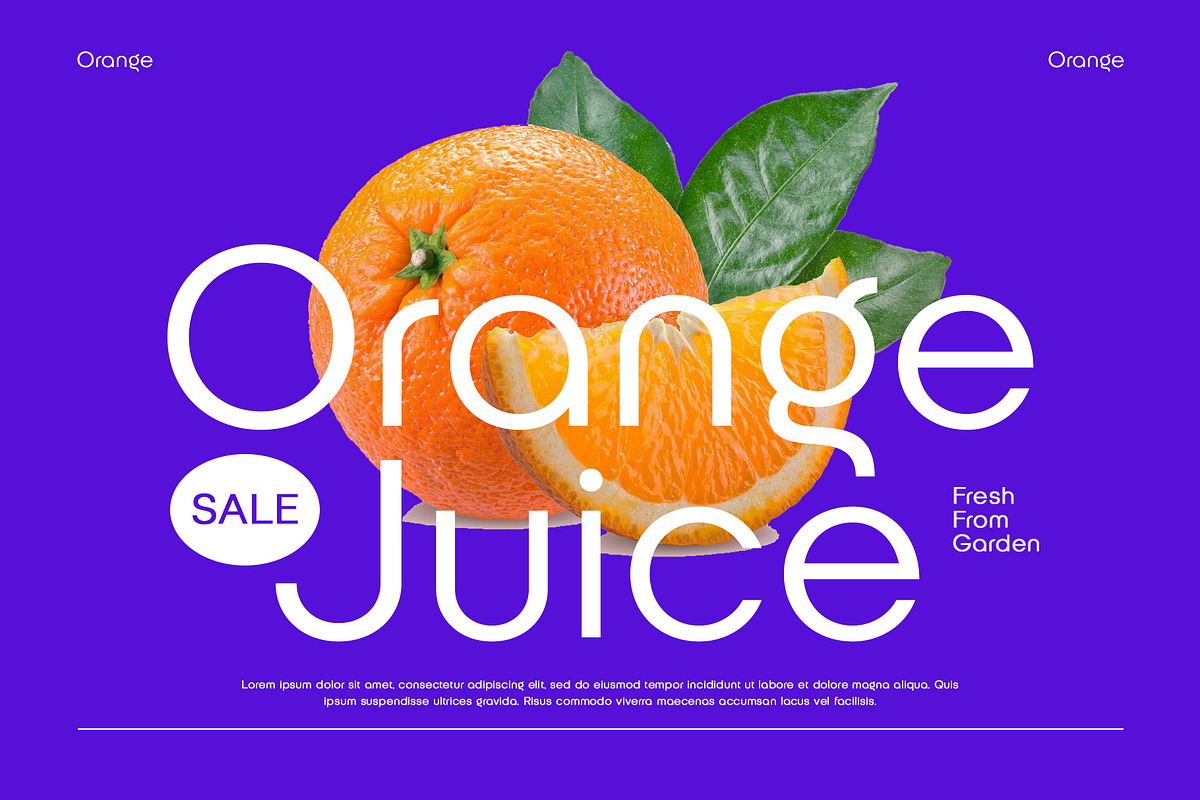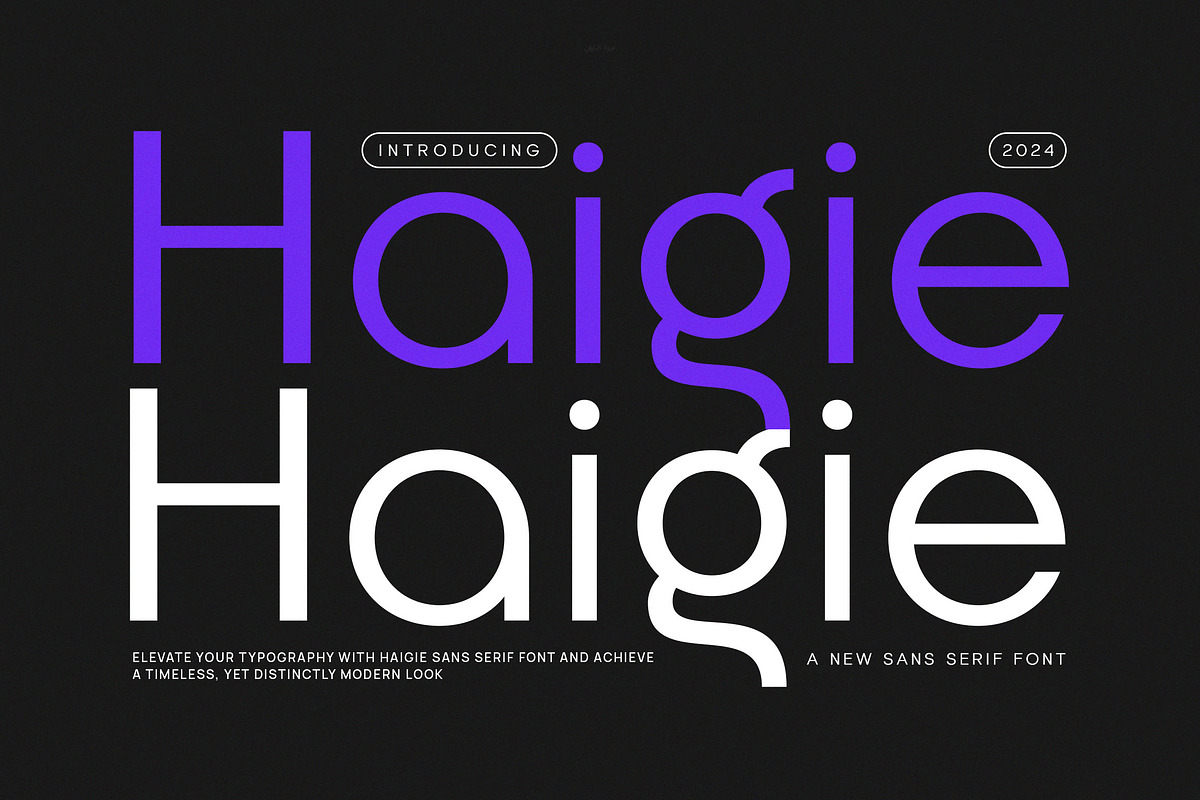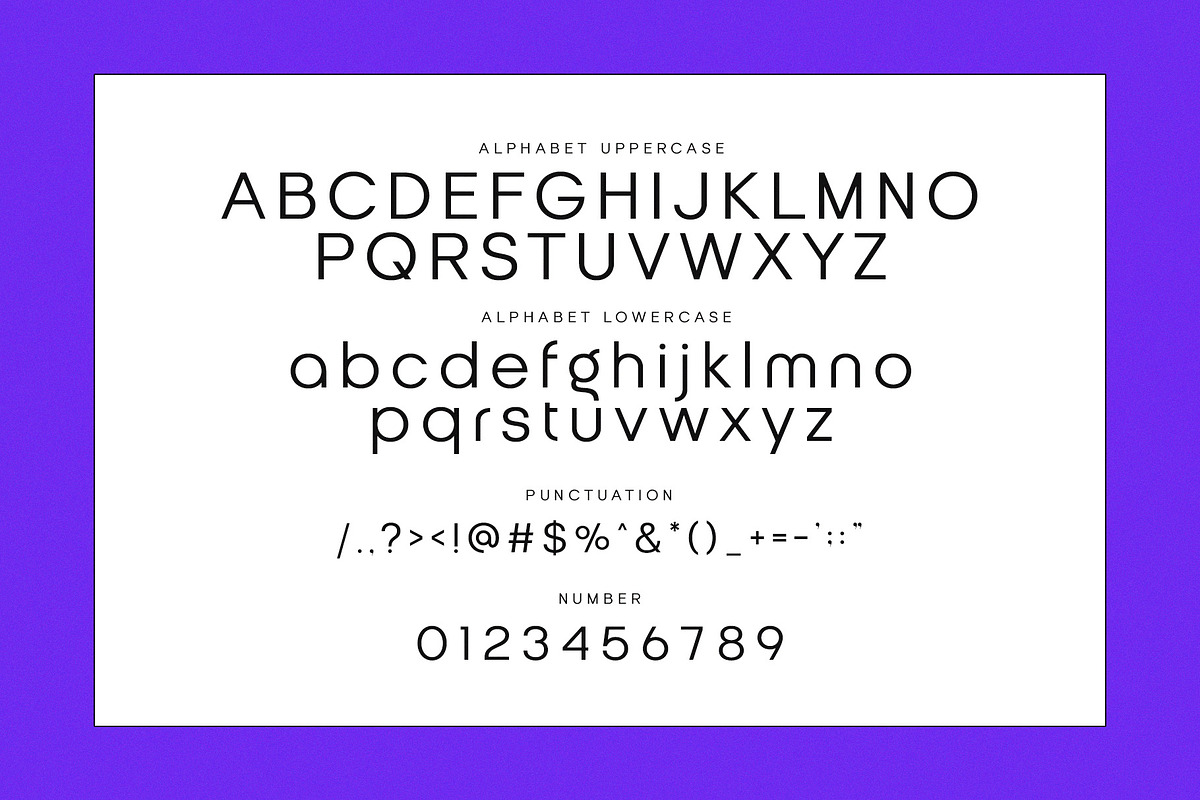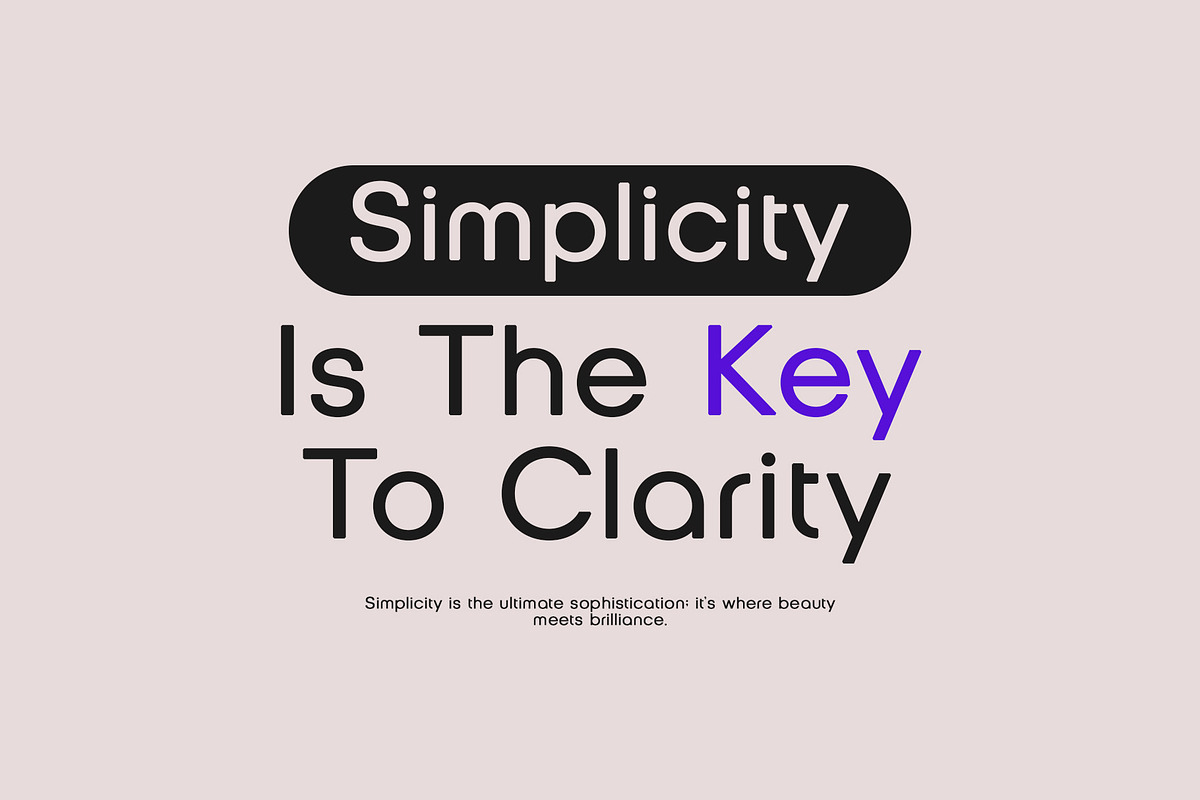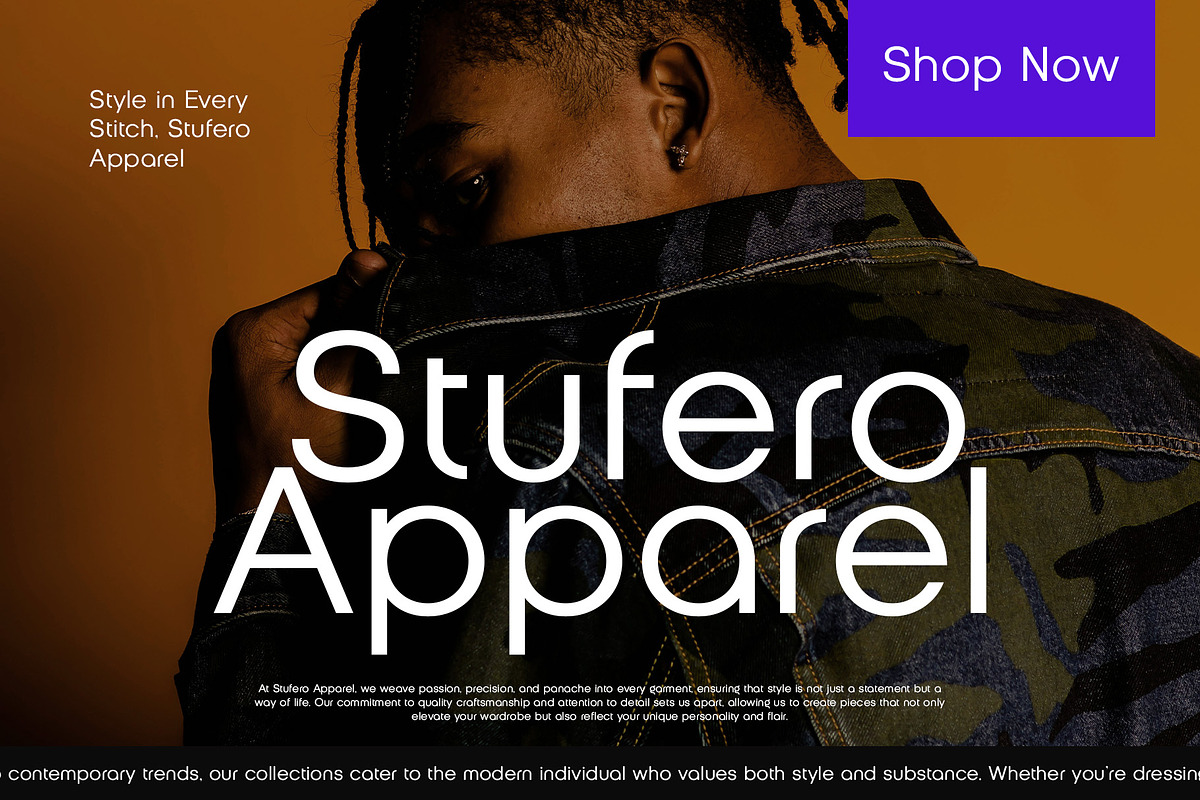
Haigie - Modern Sans Serif
Introducing Haigie - Modern Sans Serif. Haigie is a modern and simple font, best used as a display for headings, logos, branding, magazines, product packaging and invitations. Thank you.